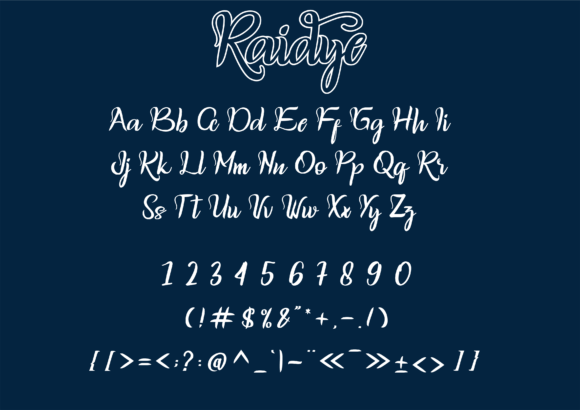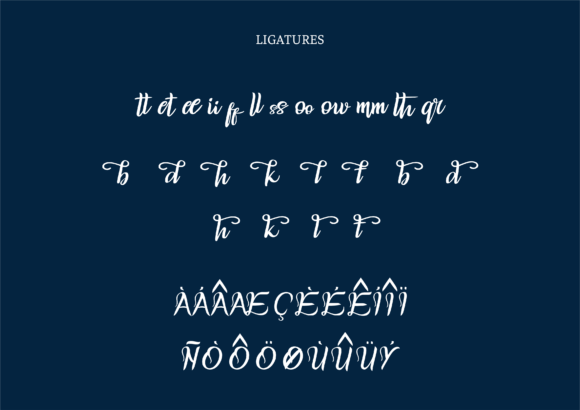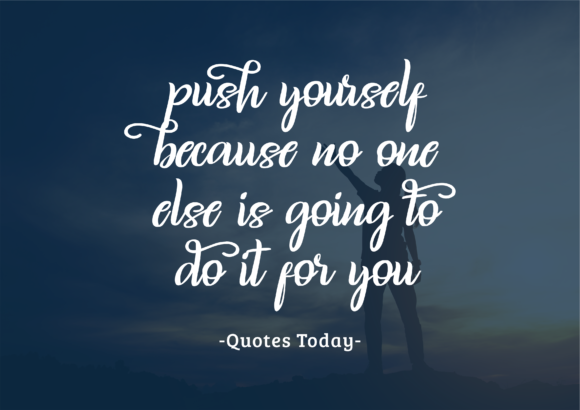
Introduction to Raidye Font
Have you ever stared at a blank page, waiting for inspiration to strike, only to be greeted by a sea of bland, uninspiring fonts? I know I have. That’s why I’m so excited to introduce you to the Raidye Font, a lovely and delicate script font that exudes elegance and class. This beautiful font is perfect for designers looking to add a touch of sophistication to their creative projects.
As a valuable resource for designers, the Raidye Font offers a high-quality design solution that can elevate any project to new heights. Whether you’re working on a logo, brochure, or website, this font is sure to impress with its refined and stylish look. And the best part? It’s PUA encoded, making it easy to access all of the amazing glyphs and ligatures you need to create a truly unique design.
- High-quality design resource ideal for creative projects, offering a unique and stylish look.
- Unique characteristics, such as its bold and modern aesthetic, set it apart from other fonts in the market.
- Perfect for designers and artists seeking a high-quality design resource for their creative projects.
Honest Review: Raidye Font
I recently had the chance to work with the Raidye Font, and I must say it’s been a game-changer for my creative projects. This font is a great design resource, offering a high-quality aesthetic that elevates any visual content.
- What works well:
- ✨ Unique and stylish design that stands out from the crowd
- ✨ Seamless integration with various design tools and software
- ✨ Perfect for creating eye-catching headings and titles
- Limitations:
- ⚠️ Limited character set, which may not be suitable for lengthy texts
- ⚠️ Not ideal for printing, as the font may not display consistently across different devices
Overall, I’m thoroughly impressed with the Raidye Font. It’s a fantastic addition to any designer’s toolkit, and I would highly recommend it for any creative project that requires a unique and stylish touch.
Tips for Getting the Most Out of Raidye Font
Raidye Font is a versatile design resource that can be used in a variety of creative projects, including logos, branding materials, and marketing materials. Its high-quality design makes it perfect for use in free downloads, such as templates and graphics.
Alternatives to Raidye Font
Great Vibes is a high-quality, elegant script font perfect for creative projects that require a touch of sophistication. It features a transparent background, making it ideal for use on any design resource, including business cards, wedding invitations, and more. When to use: formal events, luxury brands, and high-end designs. Comparison: Great Vibes offers a more refined and classic look compared to the bold and playful Raidye Font.
Pacifico is a beautiful, modern script font ideal for creative projects that require a touch of elegance and sophistication. It features a clean and minimalistic design, making it perfect for use on any design resource. When to use: outdoor events, summer campaigns, and beach-themed designs. Comparison: Pacifico offers a more relaxed and casual look compared to the bold and playful Raidye Font.
Alex Brush is a high-quality, elegant script font perfect for creative projects that require a touch of sophistication and elegance. It features a beautiful, handwritten feel, making it ideal for use on any design resource. When to use: formal events, luxury brands, and high-end designs. Comparison: Alex Brush offers a more refined and classic look compared to the bold and playful Raidye Font.